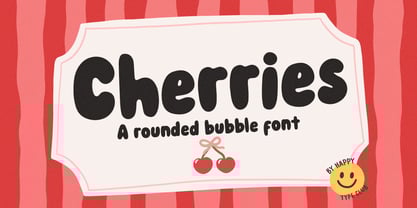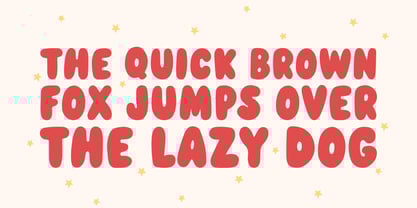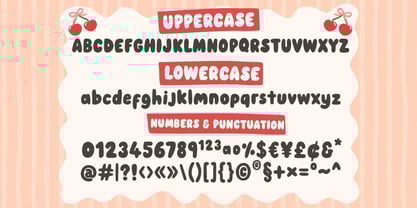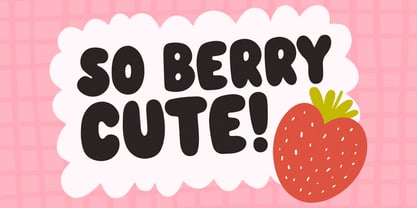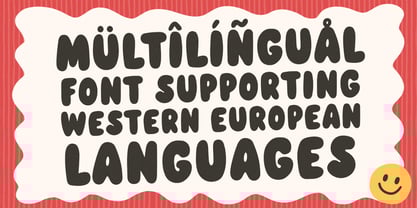
Cherries
by Happy Type Club
The Cherries Font Family was designed by Isabel Clarke and published by Happy Type Club. Cherries contains 1 styles.
Cherries is a fun cute bubble typeface perfect for any fun quirky design work! This font can be used for anything such as t-shirt designs, phone cases, greeting cards, invitations, mugs and so much more! Get creative!